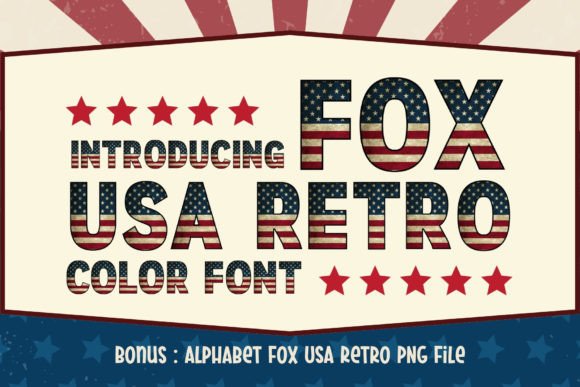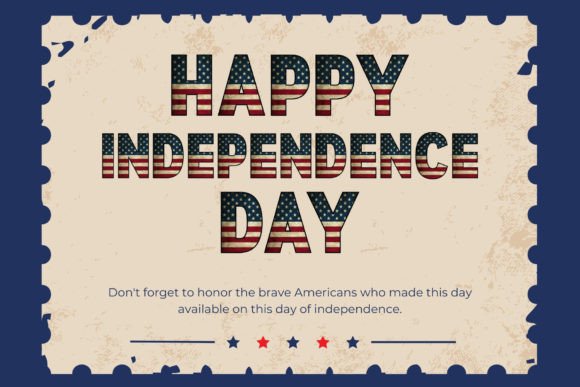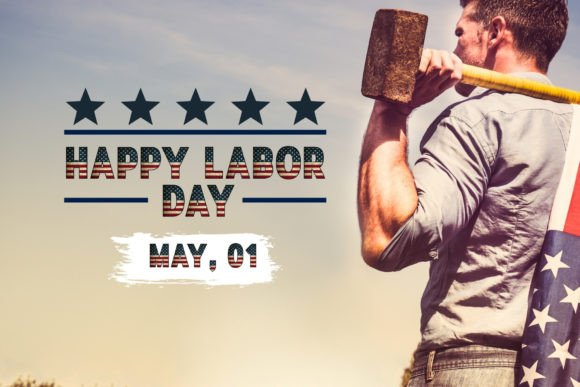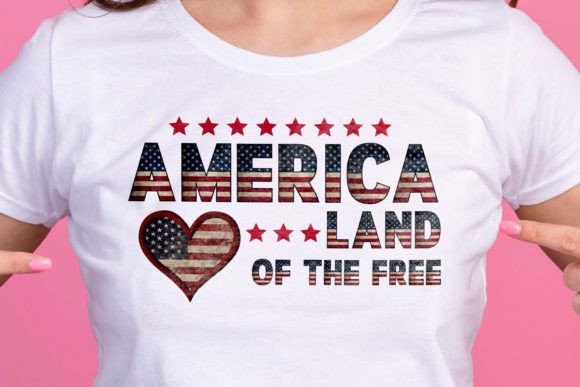
Fox Usa Retro Font
About the Fox Usa Retro Font
The wait is over! The incredible Fox Usa Retro Font is now available for your design toolkit. Introducing “Fox Usa Retro,” a retro American Flag font style. It’s the perfect font for Memorial Day-themed or 4th of July-themed projects. It works great for creating cool designs that scream for attention. It’s ideal for anything ranging from t-shirts, and greeting cards to stickers, Fall in love with its incredibly cool style, and use it to create cool designs!
Fox Usa Retro’s bold, playful personality makes it ideal for headlines, posters, and short, impactful branding elements. Its strong visual presence commands attention, perfect for eye-catching logos or limited-edition product packaging. However, its highly stylized nature makes it unsuitable for body text or UI elements where readability is paramount. Extended use would severely impair legibility.
Consider pairing Fox Usa Retro with a clean sans-serif like Montserrat for a balanced contrast, or a more vintage-styled serif such as Playfair Display for a cohesive retro feel. For a modern twist, a geometric sans-serif like Futura could create intriguing tension.
Avoid pairing it with other highly decorative or script fonts, as this would create visual clutter and reduce impact. The font’s inherent energy is best showcased when paired with fonts offering clean lines and clear readability.